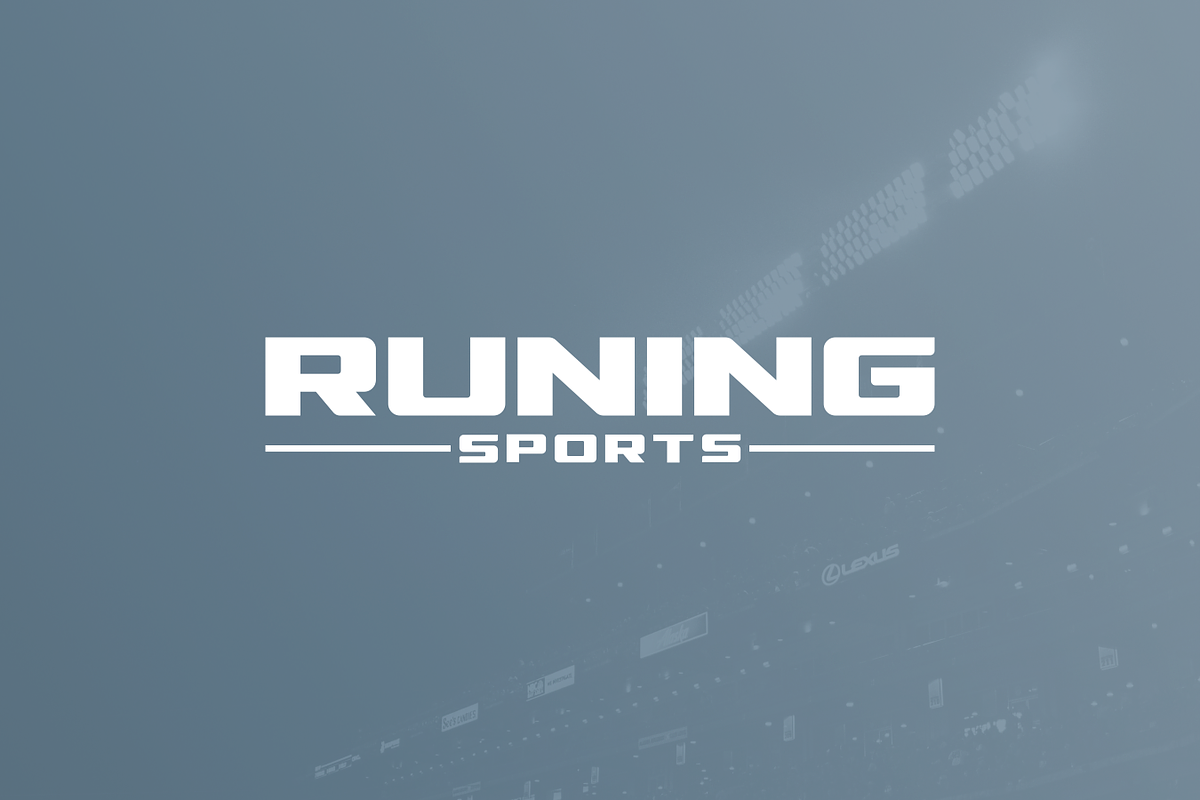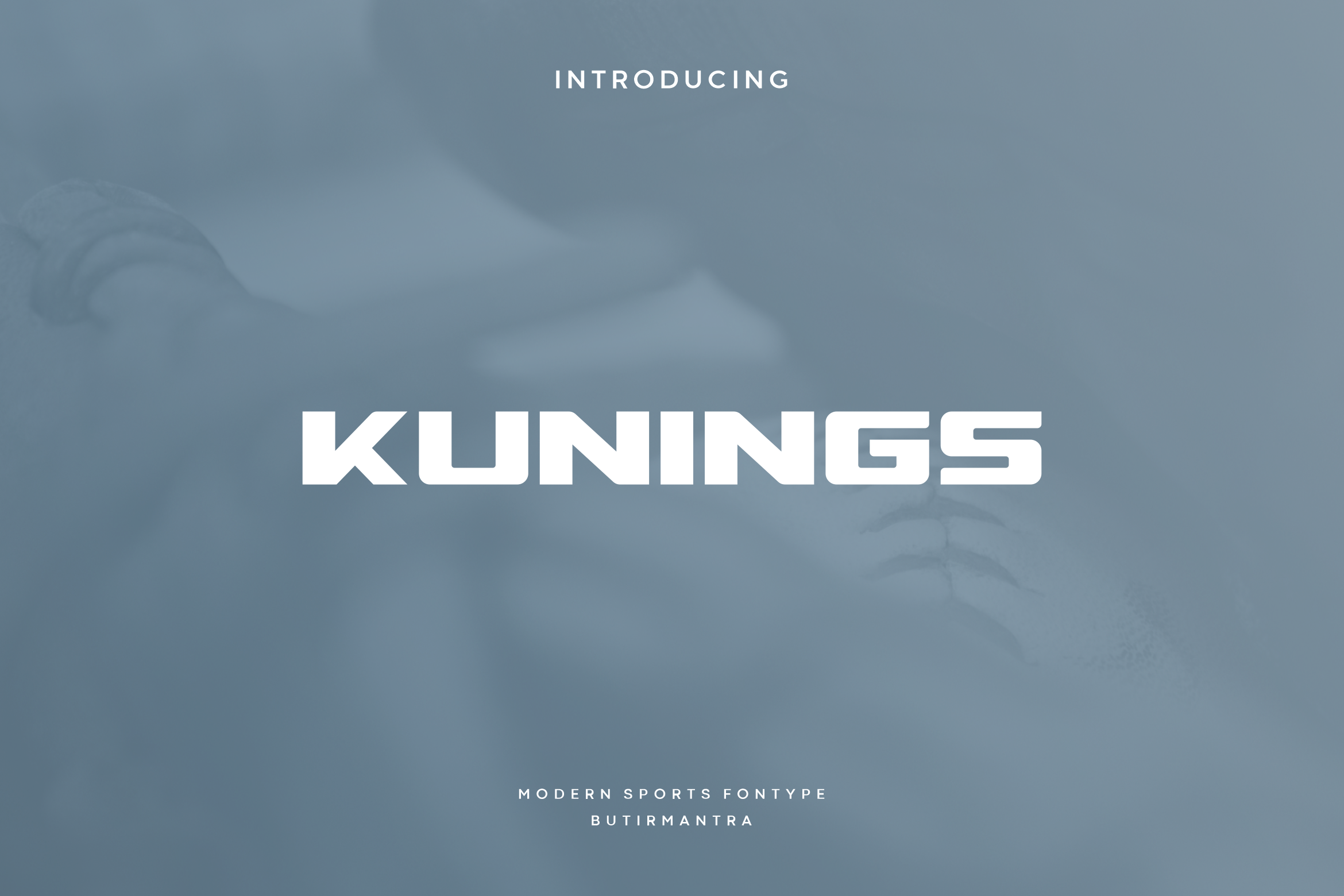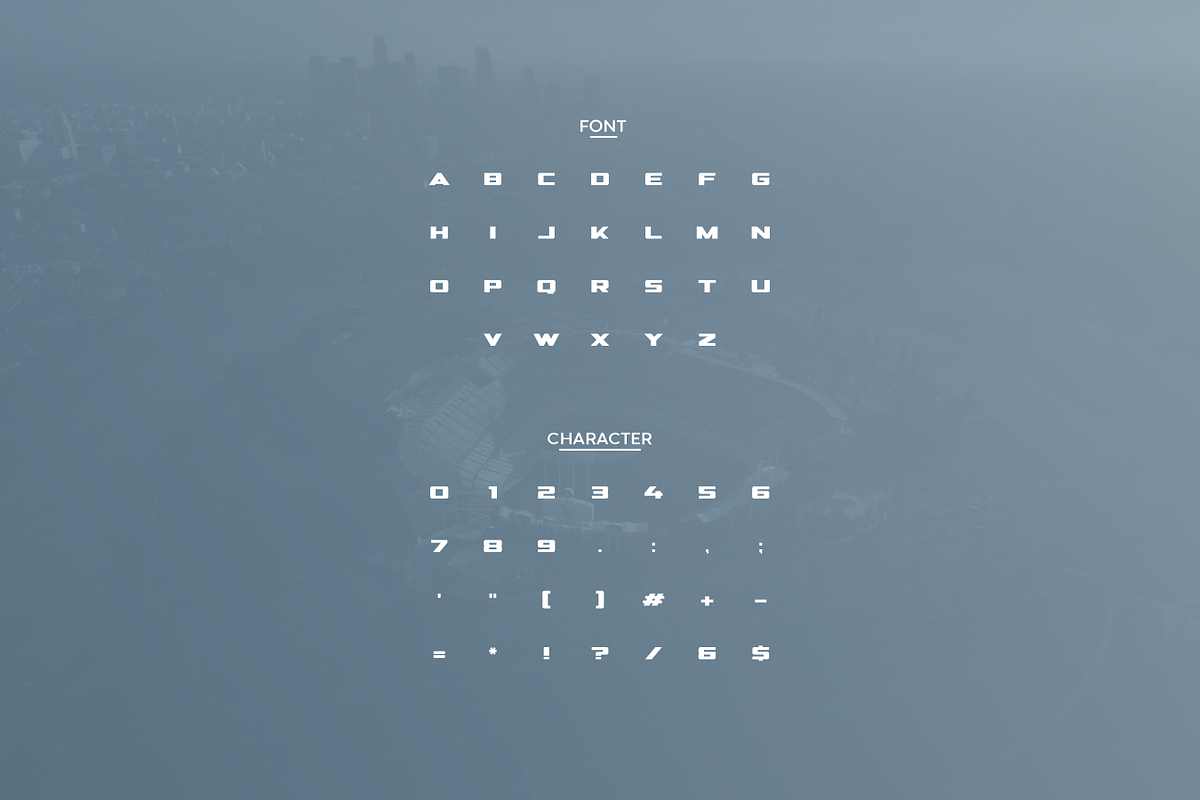
Kunings - Modern Display Typeface
Kunings is a decorative serif typeface with a sci-fi theme, modern and minimalist style. This typeface is only available in all caps, the sturdy shape and modern look make it look very strong. This type of font would be great for branding or logos, besides it would be suitable for use in headlines, signatures and titles.
- Punctuation & Number